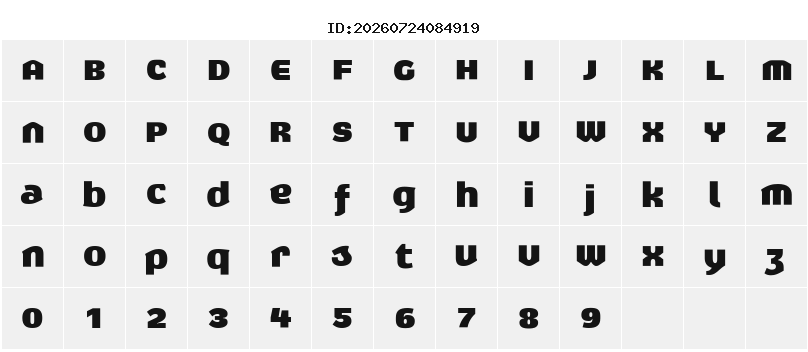
Exert Preview
• Font Name: Exert
• Full Font Name: Exert-Black
• PostScript Name: Exert-Black
About Exert.ttf
Exert.ttf is a modern, elegant sans-serif font designed for ultimate readability and visual harmony. Perfect for branding, headlines, web design, and print materials.